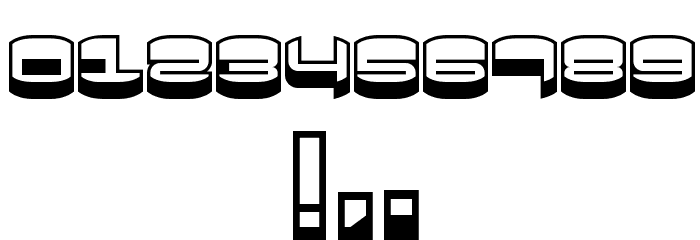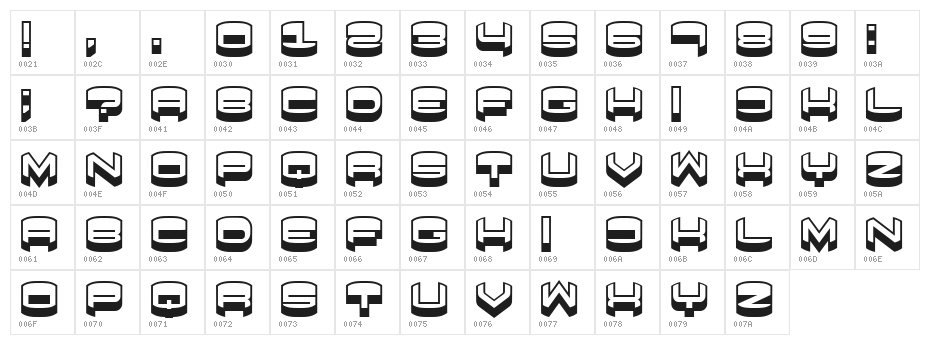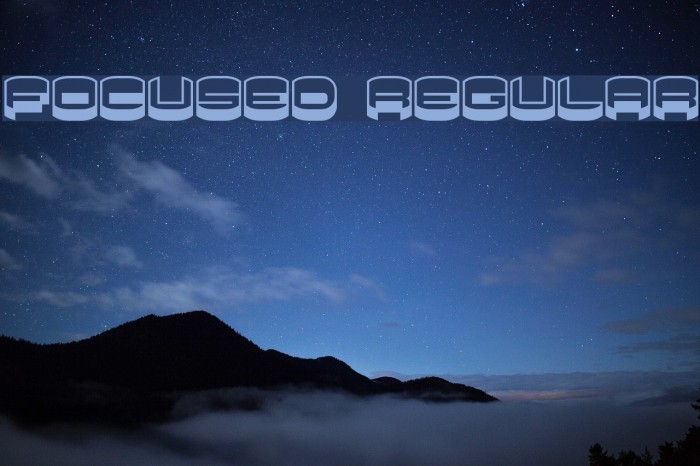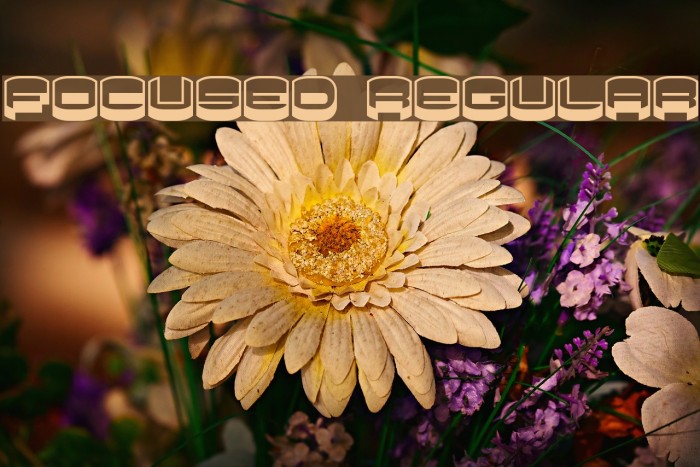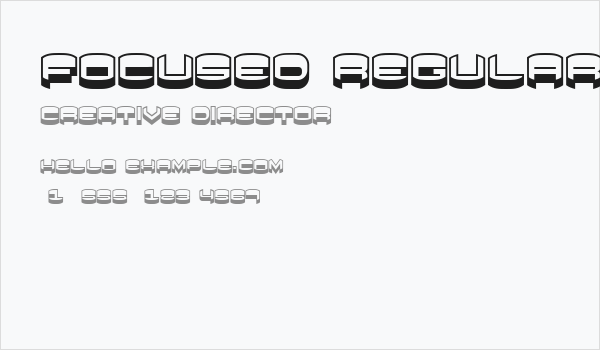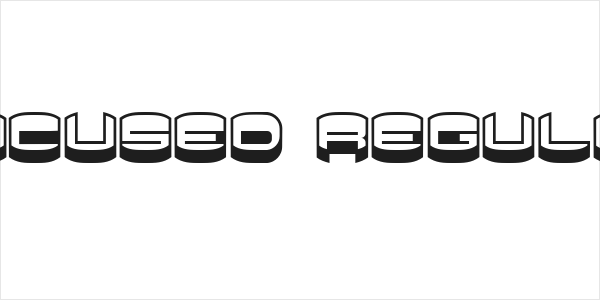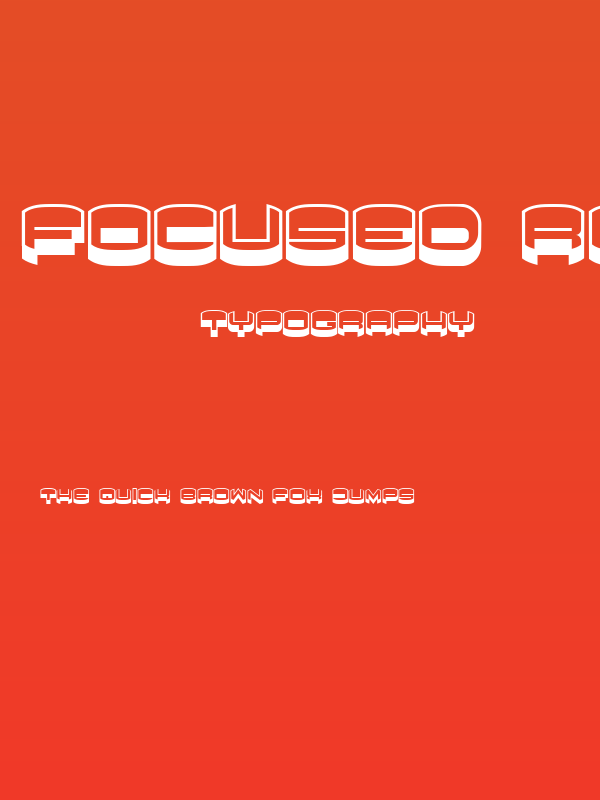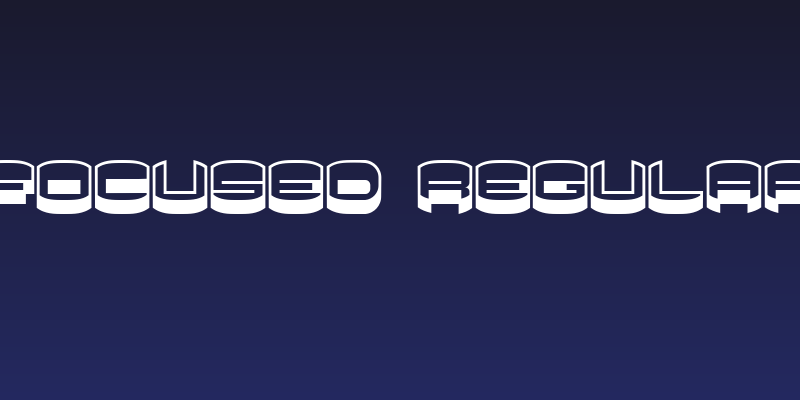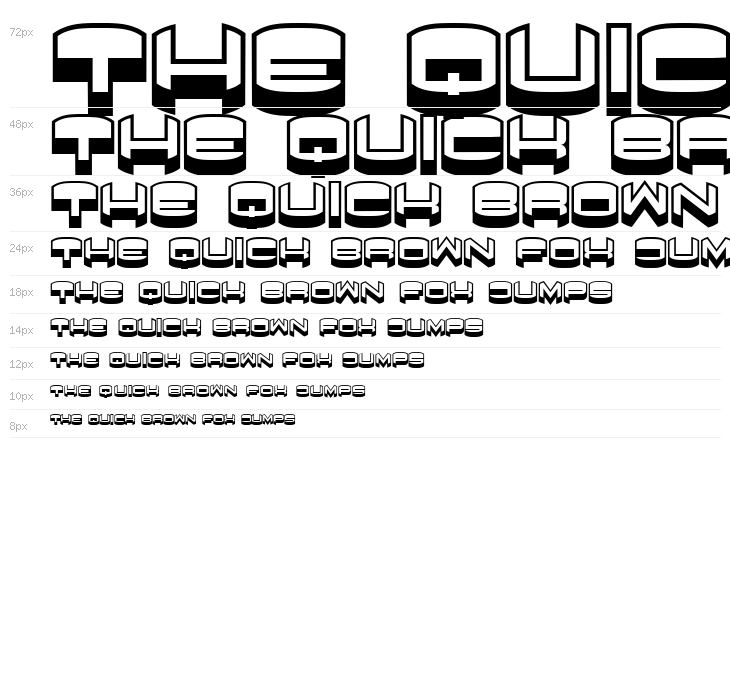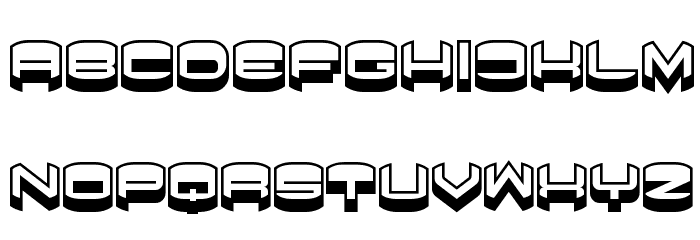
Focused Regular Font
Focused Regular Description
This font features a bold, three-dimensional style with a strong shadow effect that gives each character a striking, impactful appearance. The letters are uppercase and have a geometric, block-like structure, which enhances their boldness and visibility. The design is modern and futuristic, making it ideal for projects that require a standout, eye-catching typeface. The numbers and special characters follow the same design principles, ensuring consistency across all elements. The font's unique style makes it suitable for creative and dynamic visual projects.
Proposed ProjectsIdeal for posters, logos, video game graphics, and any project needing a bold, futuristic look.